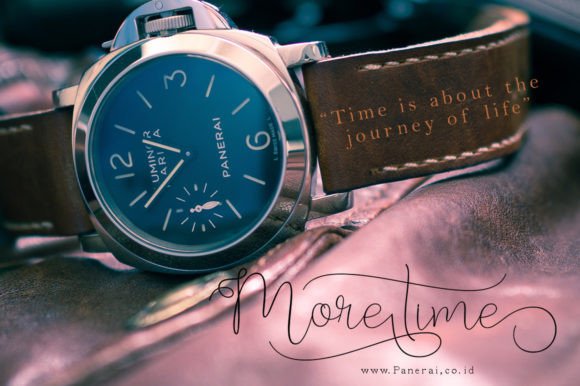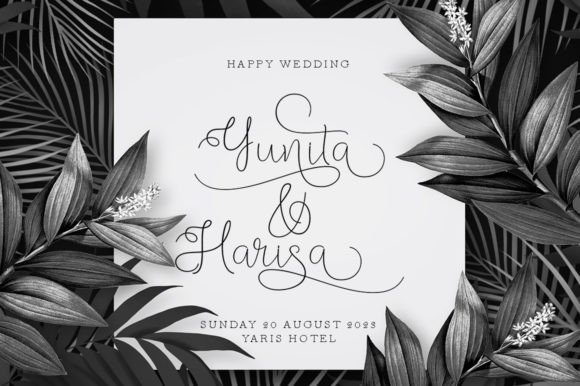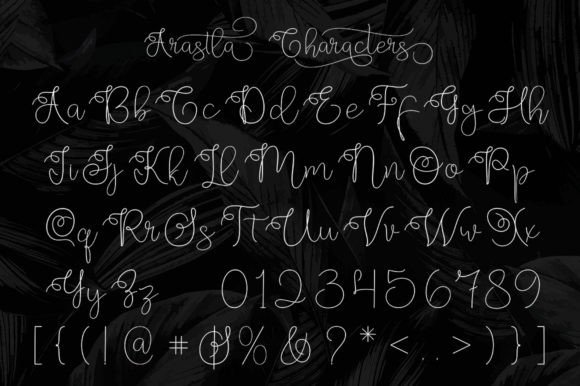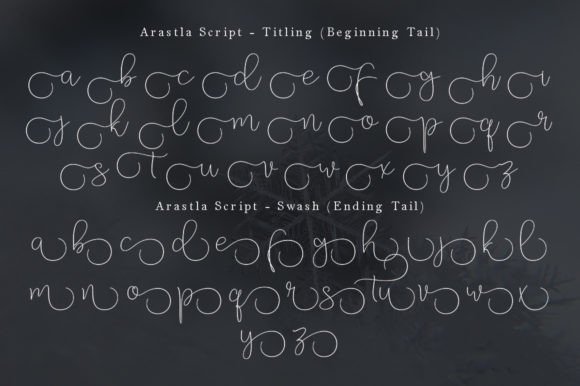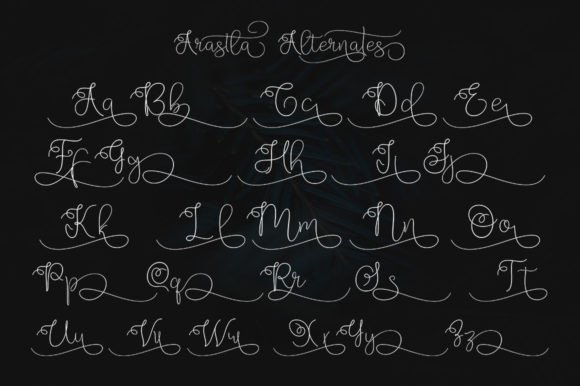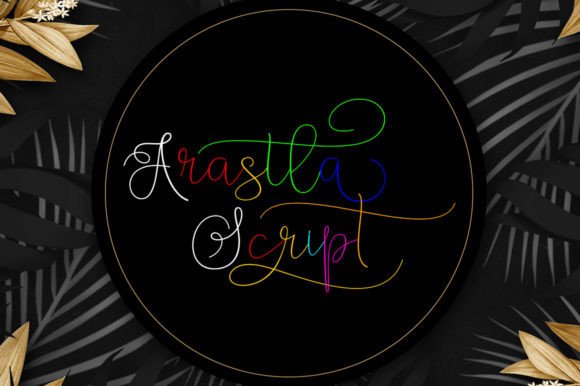
Discover the Magic of Handwritten Charm with Arastla Script Font
Have you ever stared at a blank page, trying to come up with the perfect phrase to capture the essence of your brand or a special occasion? That’s exactly where I was when I stumbled upon the Arastla Script Font – a game-changer for designers and creatives alike.
With its elegant and unique signature style, the Arastla Script Font is perfect for adding a touch of personality to your designs. Whether you’re working on a photo overlay, business card, invitation, or any other creative project, this font is sure to make it stand out. Plus, its PUA encoding makes it incredibly easy to use and customize.
As a designer, you know how valuable it is to have a versatile and stylish font in your toolkit. The Arastla Script Font is a must-have for anyone looking to elevate their designs and make a lasting impression.
Arastla Script Font Key Features
- Font Style: Handwritten, Script
- Unique Characteristics: Elegant, cursive design with subtle flair and texture, ideal for creative and artistic projects
Arastla Script Font Review
Firstly, I have to say that Arastla Script Font has a certain charm to it. ✨ The script font style is elegant and adds a touch of sophistication to any design. The font is highly customizable, allowing designers to adjust the spacing, size, and color to suit their needs. ✨ The font also supports a wide range of languages, making it a great option for designers working on international projects.
- ✨ Elegant script font style
- ✨ Highly customizable
- ✨ Supports a wide range of languages
However, there are some limitations to consider. ⚠️ The font may not be suitable for projects requiring a more modern or bold look, as it can come across as a bit old-fashioned. Additionally, some users may find the font difficult to read in certain sizes or on low-resolution screens. ⚠️
- ⚠️ May not be suitable for modern or bold designs
- ⚠️ Can be difficult to read in certain sizes or on low-resolution screens
Overall, Arastla Script Font is a solid choice for designers looking for a elegant script font. While it may have some limitations, it is a great option for projects requiring a sophisticated and customizable font.
Arastla Script Font is ideal for creating elegant and sophisticated designs. Use it for:
- Branding and logo designs
- Quote and typography-based designs
Alternatives to Arastla Script Font
Carolyna Pro is a elegant script font perfect for creating beautiful invitations, wedding designs, and luxury branding. It’s a modern script font with a touch of classic sophistication.
Compared to Arastla Script Font, Carolyna Pro has a more refined and polished look, making it ideal for high-end designs. Arastla Script Font has a more playful and casual feel, while Carolyna Pro is more formal and elegant.
Pacifico is a beautiful script font that evokes a sense of relaxation and calmness. It’s perfect for creating designs that need a touch of warmth and personality.
Compared to Arastla Script Font, Pacifico has a more laid-back and casual feel, making it ideal for designs that need a relaxed vibe. Arastla Script Font has a more energetic and playful feel, while Pacifico is more mellow and soothing.
Great Vibes is a modern script font that’s perfect for creating designs that need a touch of sophistication and elegance. It’s ideal for luxury branding, fashion designs, and high-end marketing materials.
Compared to Arastla Script Font, Great Vibes has a more refined and polished look, making it ideal for high-end designs. Arastla Script Font has a more playful and casual feel, while Great Vibes is more formal and sophisticated.